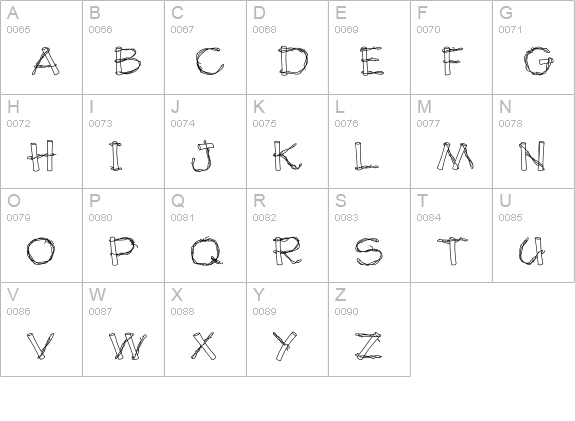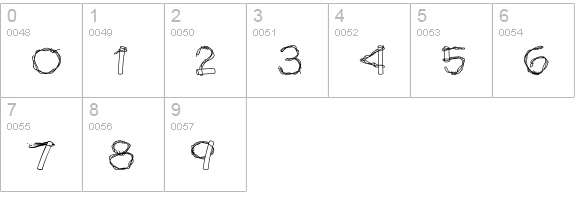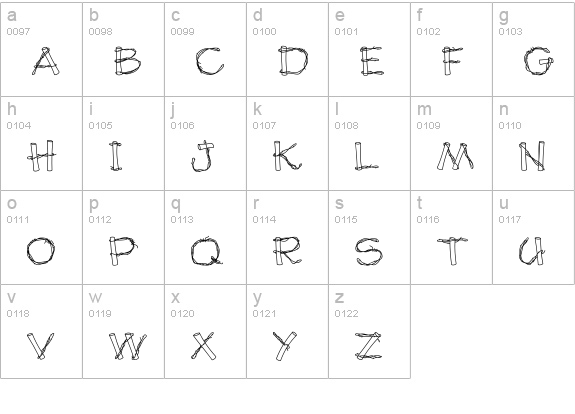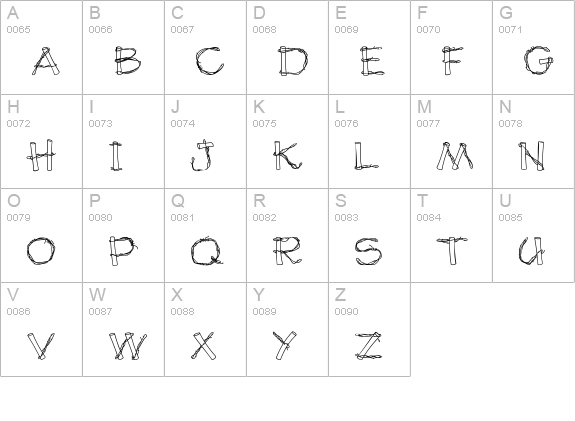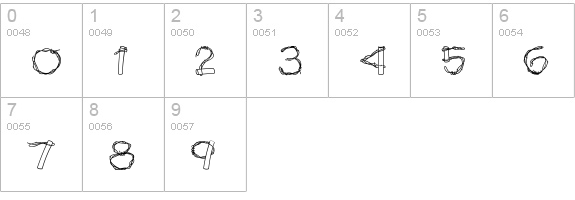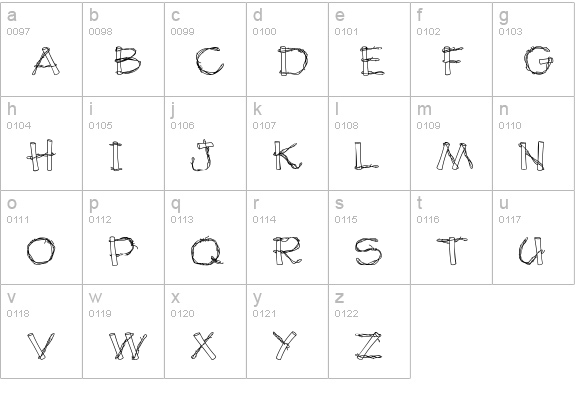
CK Barbed Wire Font Details
Introducing CK Barbed Wire font, a unique and edgy typeface that exudes a bold and rebellious aesthetic. With its sharp and angular design reminiscent of actual barbed wire, this font is perfect for adding a touch of grit and attitude to your projects. CK Barbed Wire is versatile and can be used for various design purposes, from logos to posters and everything in between. The best part? CK Barbed Wire font is completely free to download at FontsMarket.com, making it accessible to all designers looking to make a statement with their typography. So why wait? Download CK Barbed Wire today and unleash your creativity with this striking and eye-catching font.